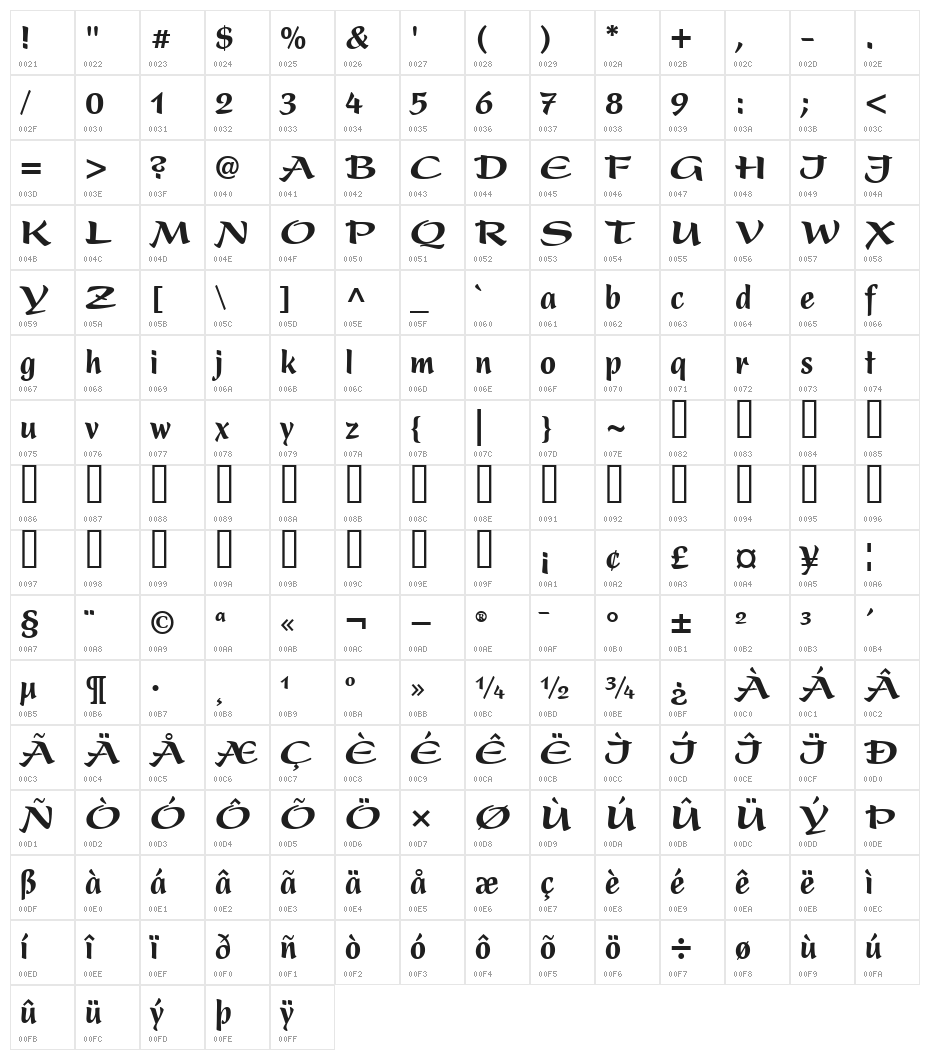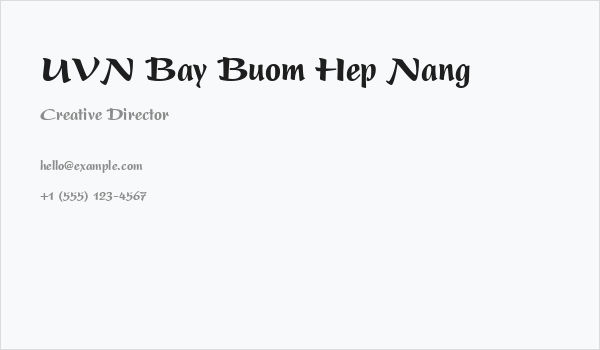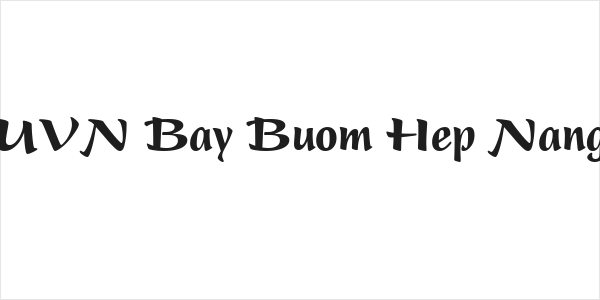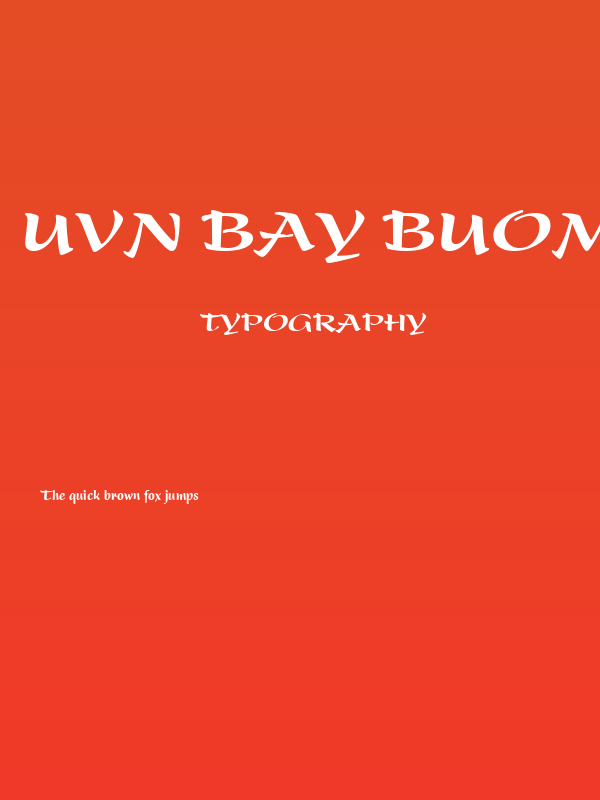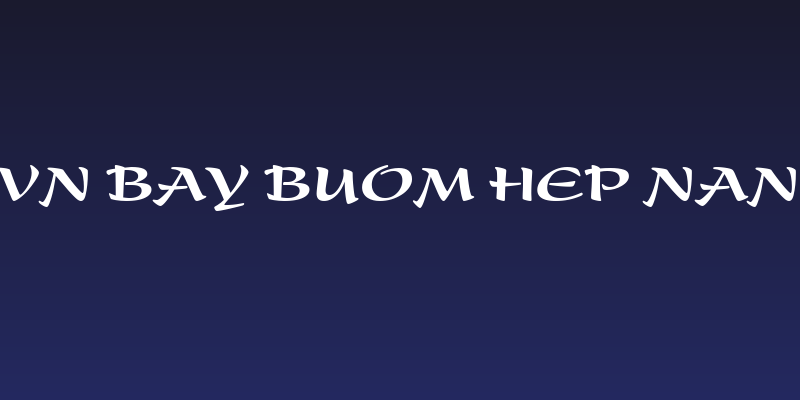
UVN Bay Buom Hep Nang Font
UVN Bay Buom Hep Nang Description
This font features a bold and dynamic style with a distinctive flair in each character. The uppercase letters have a strong presence with sharp, angular serifs that give them a unique, slightly aggressive look. The lowercase letters maintain a consistent flow, with rounded edges that contrast with the sharpness of the uppercase. The numerals are bold and clear, making them easily readable. Special characters are stylized to match the overall aesthetic, providing a cohesive look across all glyphs. The font's design is both eye-catching and versatile, suitable for various creative applications.
| Proposed Projects | Ideal for branding, poster design, and headlines where a strong visual impact is desired. |